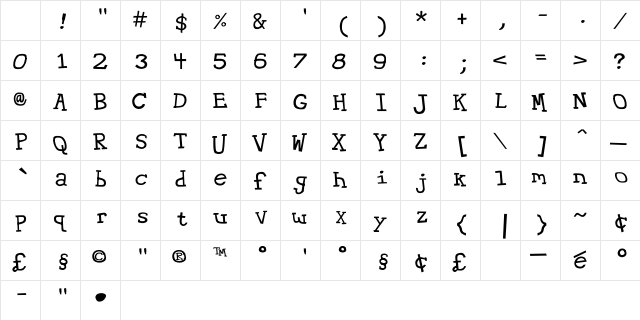
Complete Queenstown Regular glyph index. Displaying only characters natively supported by Queenstown Regular font.
Queenstown is a composed and adaptable typeface that performs quietly and consistently across a wide range of design contexts.